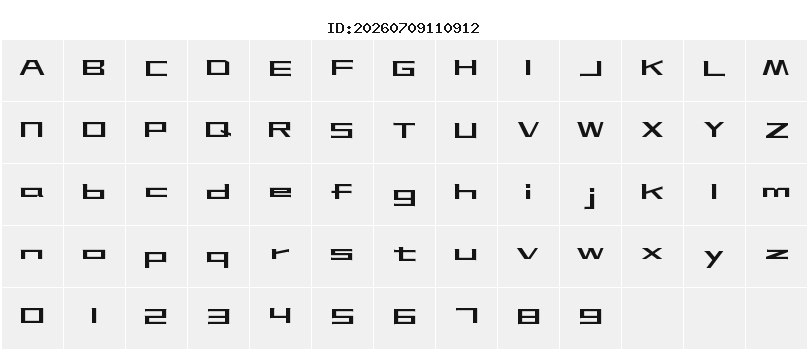
站酷酷黑 Preview
• Font Name: 站酷酷黑
• Full Font Name: 站酷酷黑
• PostScript Name: HuXiaoBoKuHei
About 站酷酷黑.ttf
站酷酷黑.ttf is a modern, elegant sans-serif font designed for ultimate readability and visual harmony. Perfect for branding, headlines, web design, and print materials.